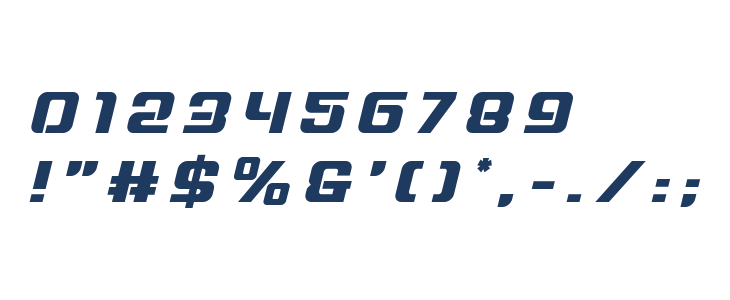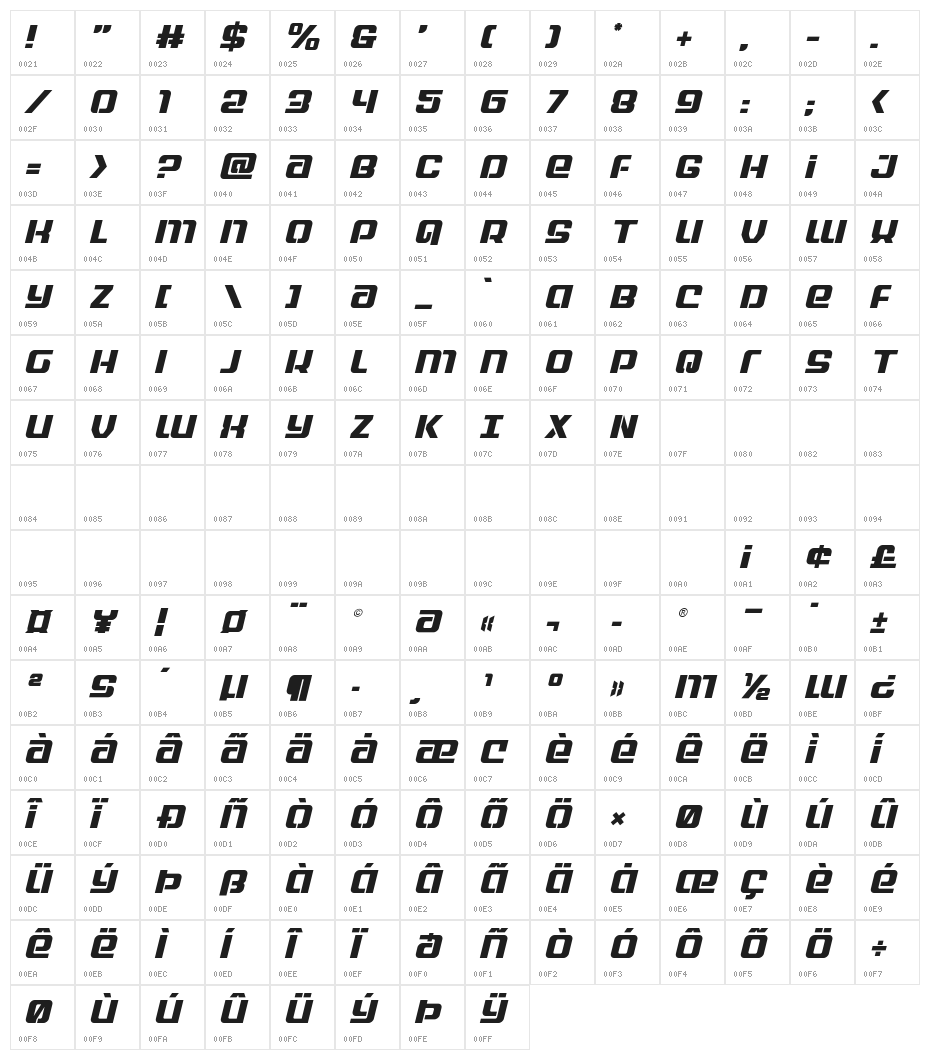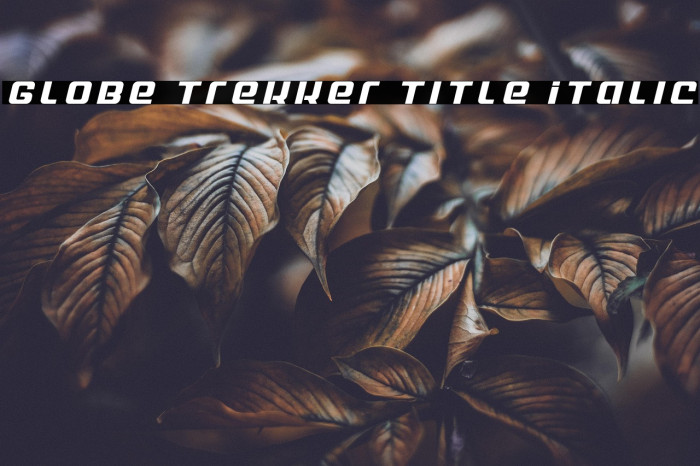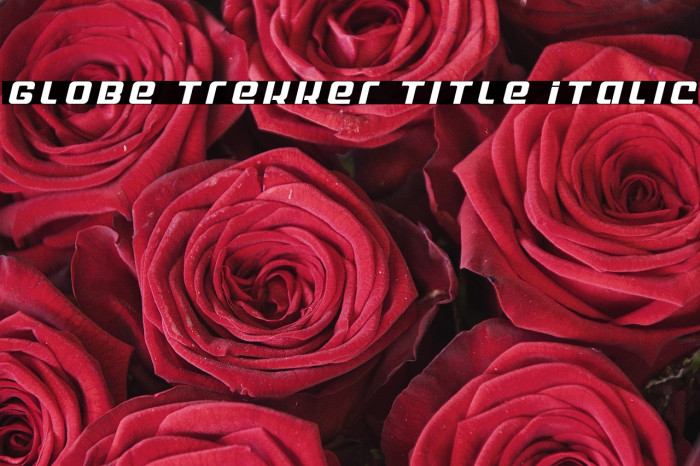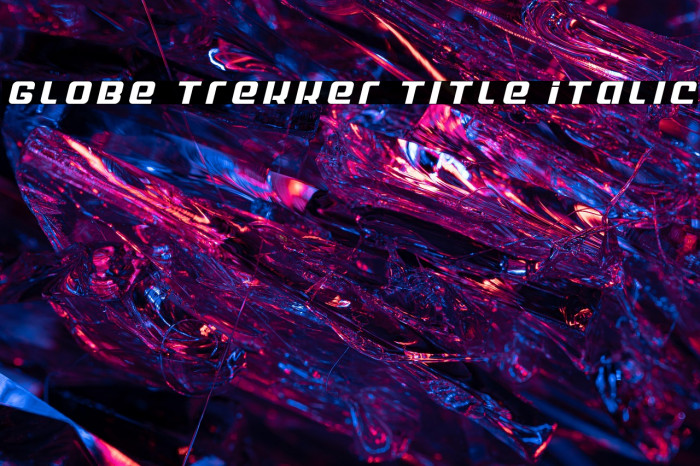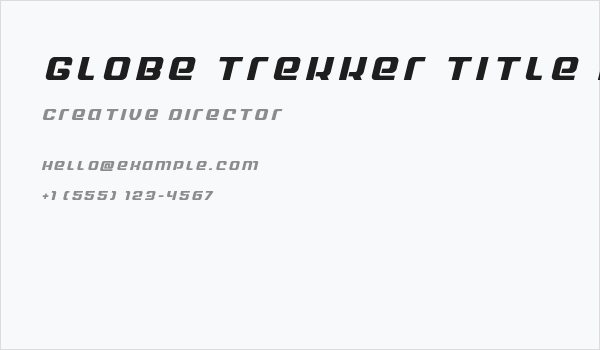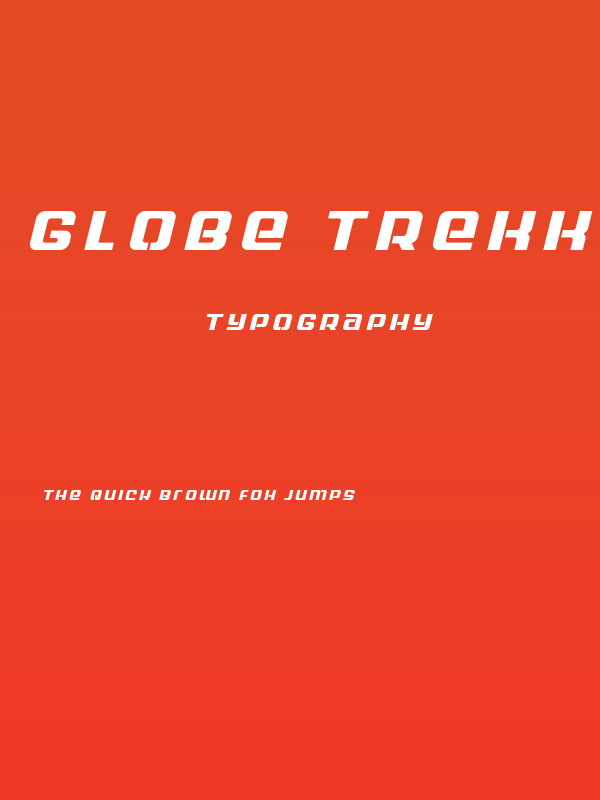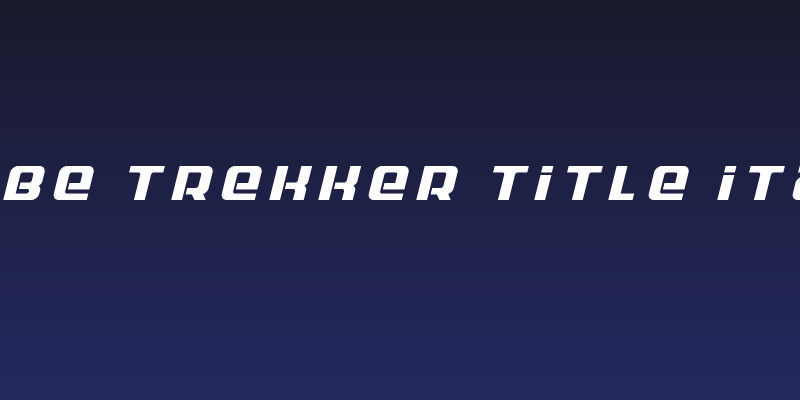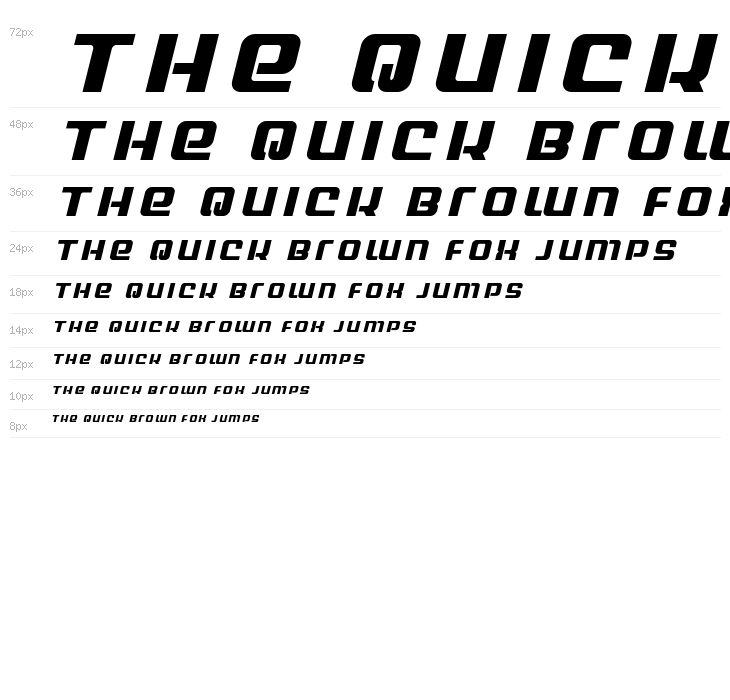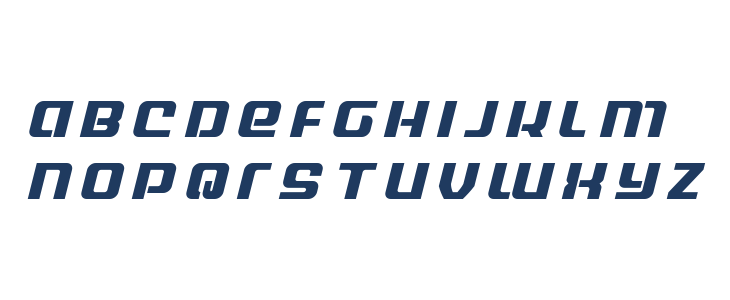
Globe Trekker Title Italic Font
Globe Trekker Title Italic Description
This font features a bold and dynamic italic style, characterized by its slanted and forward-leaning letters that convey a sense of movement and speed. The characters are designed with a modern and futuristic aesthetic, incorporating clean lines and sharp angles. The uppercase and lowercase letters maintain a consistent style, with a slight variation in stroke thickness that adds depth and interest. The numerals and special characters are crafted to match the overall design, ensuring a cohesive look across all text elements. This font is ideal for projects that require a contemporary and energetic feel, making it suitable for branding, advertising, and digital media.
| Use Case | Headlines, Logos, Advertising |
| Proposed Projects | Ideal for branding, advertising, digital media, and projects requiring a contemporary and energetic feel. |